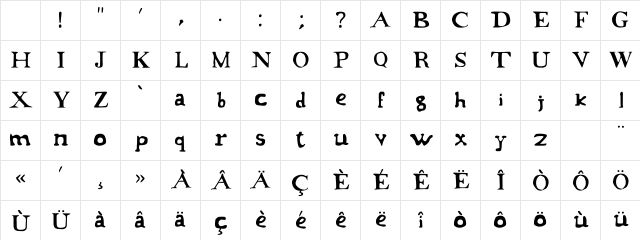
Article Premier is a composed and adaptable typeface that performs quietly and consistently across a wide range of design contexts.
Pro Tip: Use Article Premier in both headline and body roles to test its range before committing to a single application.